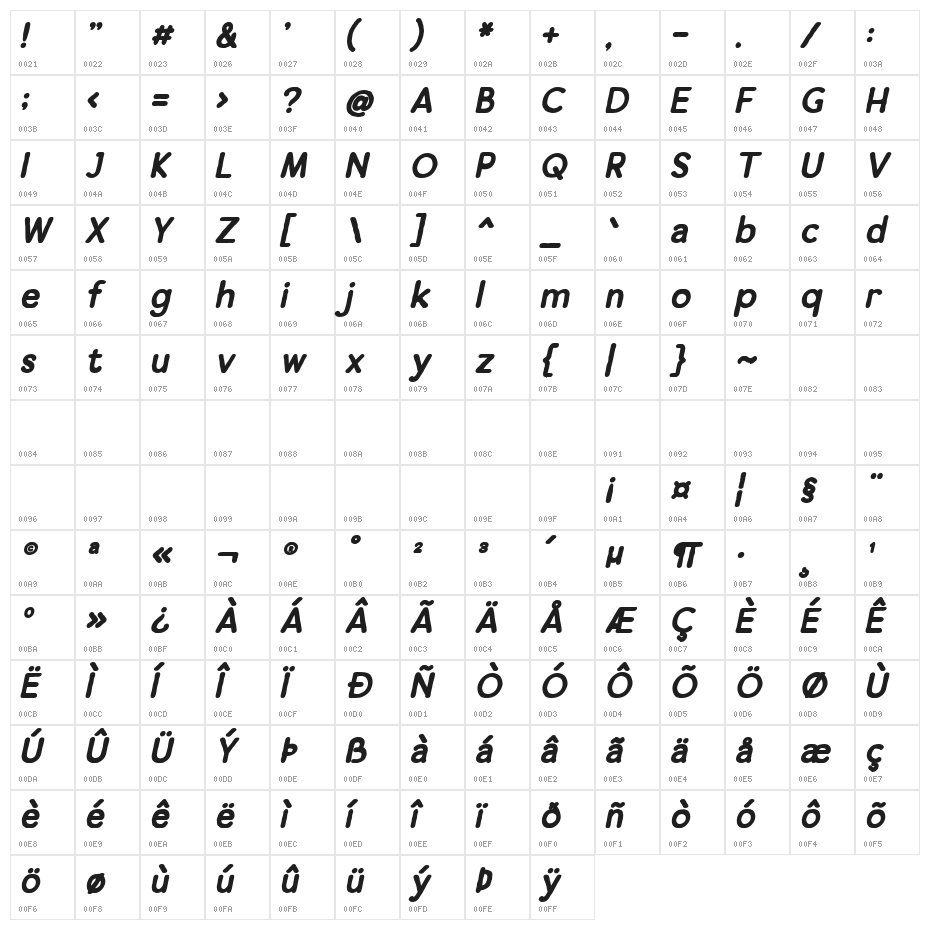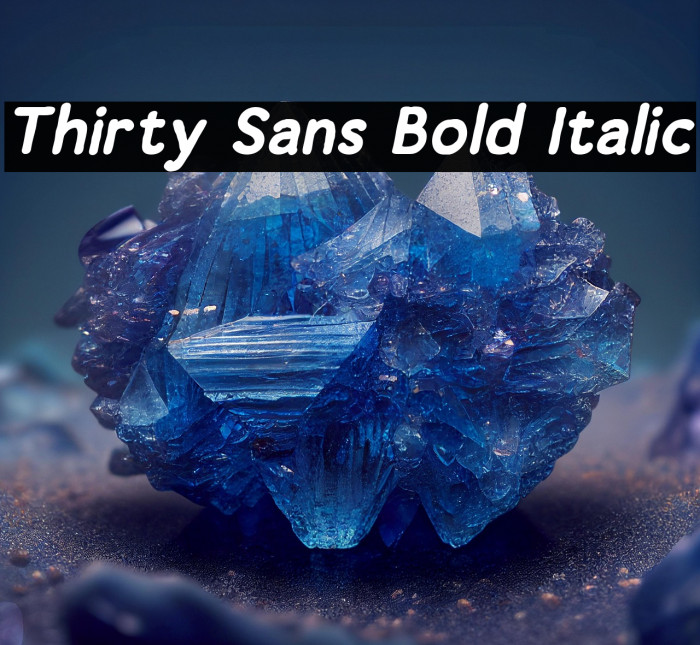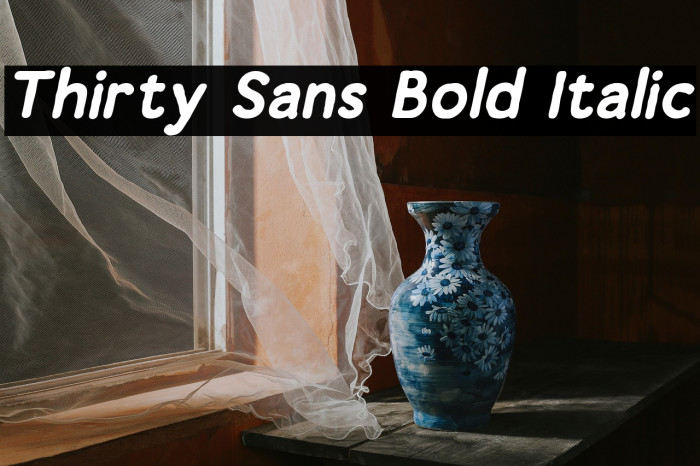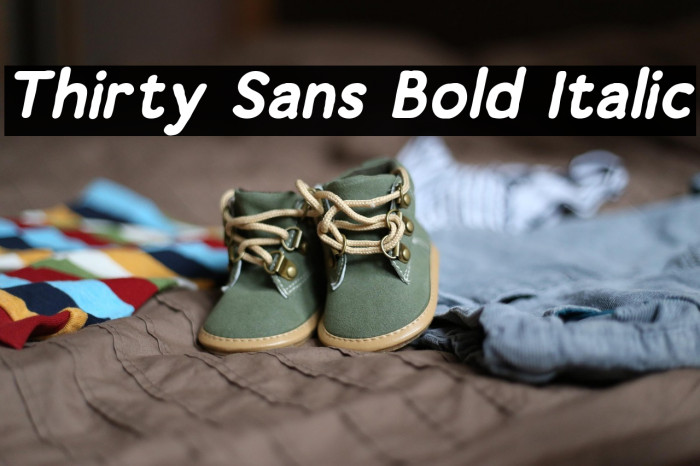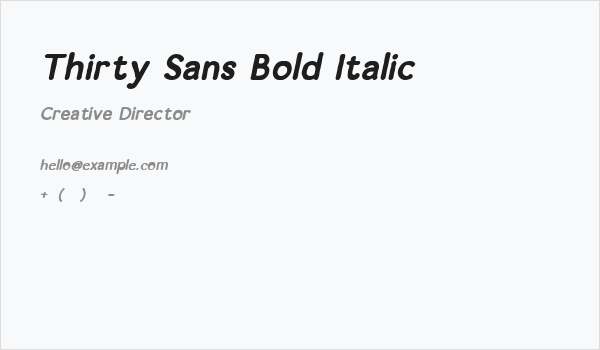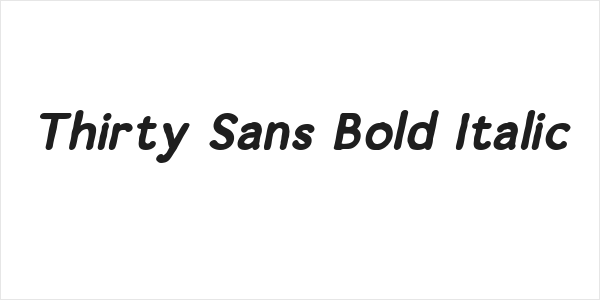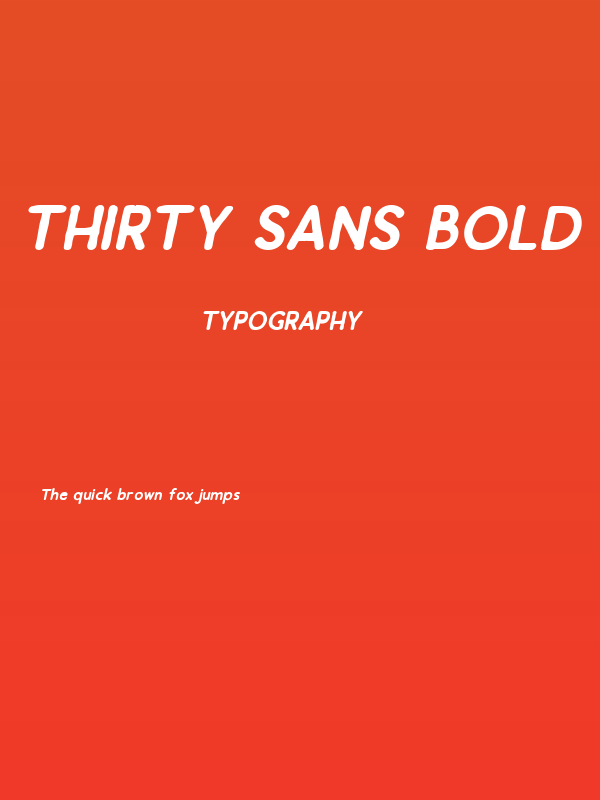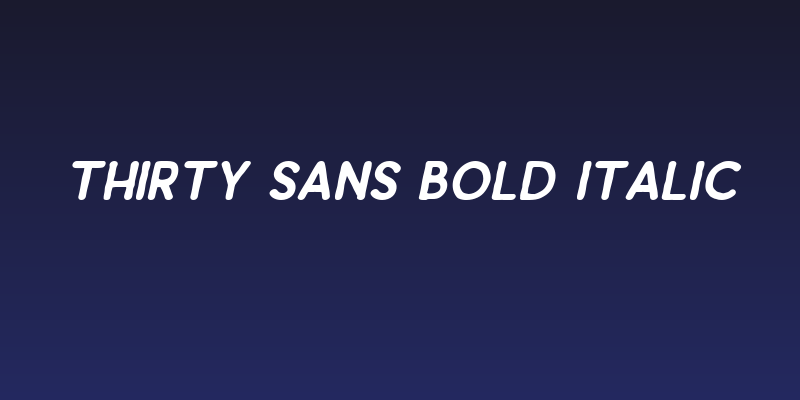
Thirty Sans Bold Italic Font
Thirty Sans Bold Italic Description
This font exhibits a bold and italicized style, characterized by smooth, rounded edges and a consistent stroke width. The letters are slightly slanted, giving a dynamic and modern feel. The uppercase and lowercase letters maintain a uniform appearance, with a slight emphasis on curves, enhancing readability. The numerals and special characters are well-integrated, matching the overall aesthetic. This font is versatile, suitable for both digital and print media, offering a contemporary look that is both professional and approachable.
| Use Case | Headlines, Logos, Digital Media |
| Proposed Projects | Ideal for branding, advertising, and digital media projects where a modern and dynamic appearance is desired. |